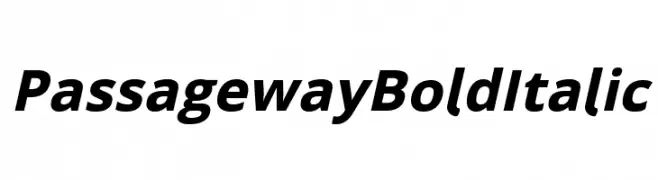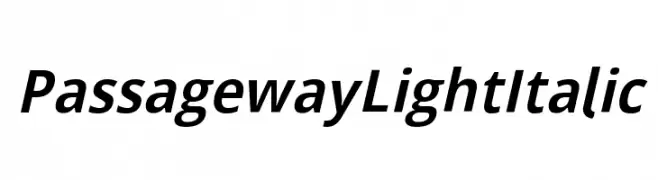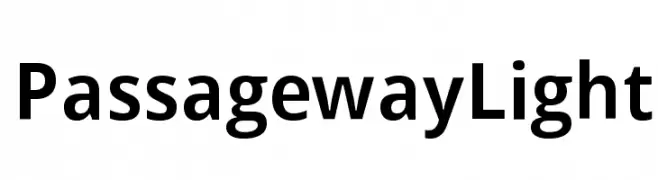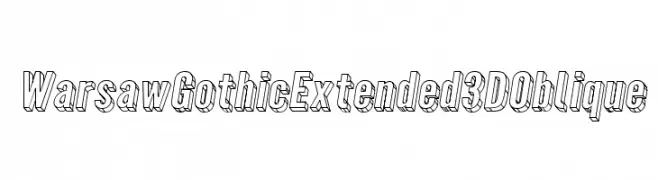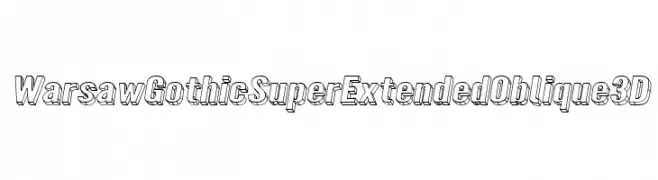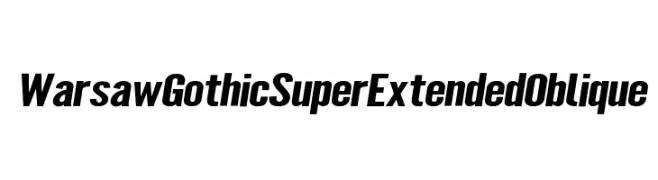
A bold, outlined font with a modern and geometric style.
A bold, 3D oblique font with outlined characters and a modern aesthetic.
A bold, oblique, and super extended font with a modern, dynamic style.
A bold, 3D oblique font with an extended width and outlined characters.
A bold, shadowed, and oblique font with a dynamic and three-dimensional look.
A bold, condensed font with high contrast and strong visual impact.
A bold, shadowed font with a vintage yet modern appeal.
A bold, italicized sans-serif font with a modern and dynamic style.
A clean, modern sans-serif font with geometric letterforms and uniform stroke width.
A sleek, modern light italic font with smooth, dynamic strokes.